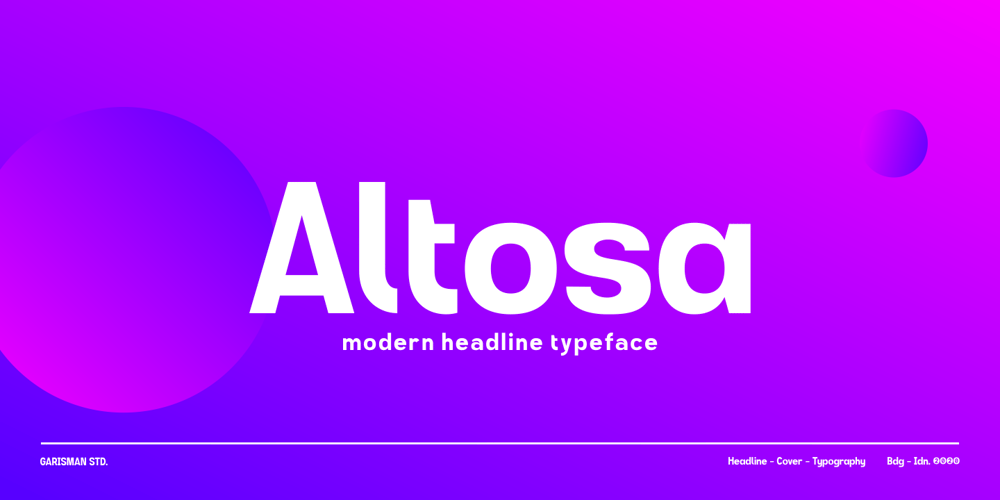
GR Altosa Font Family was designed by Risman Ginarwan and published by Garisman Studio. GR Altosa contains 1 styles and family package options. GR Altosa is a very cool typeface for headline designs with a bold and bold theme. With a strong display and clean nodes make text in the design become more character and great. Inspired by headline trends in a poster or magazine today. So that with a firm and a very modern style makes your design better!This font is formed from the headline display font of a very careful title. Suitable for all graphic design projects, prints, logos, posters, t-shirts, packaging, website, ticket and applies to several types of graphic design. Especially for the use of a title! Very suitable! GR Read is compatible with any software without pain, especially in headlines with GR Altosa pairing